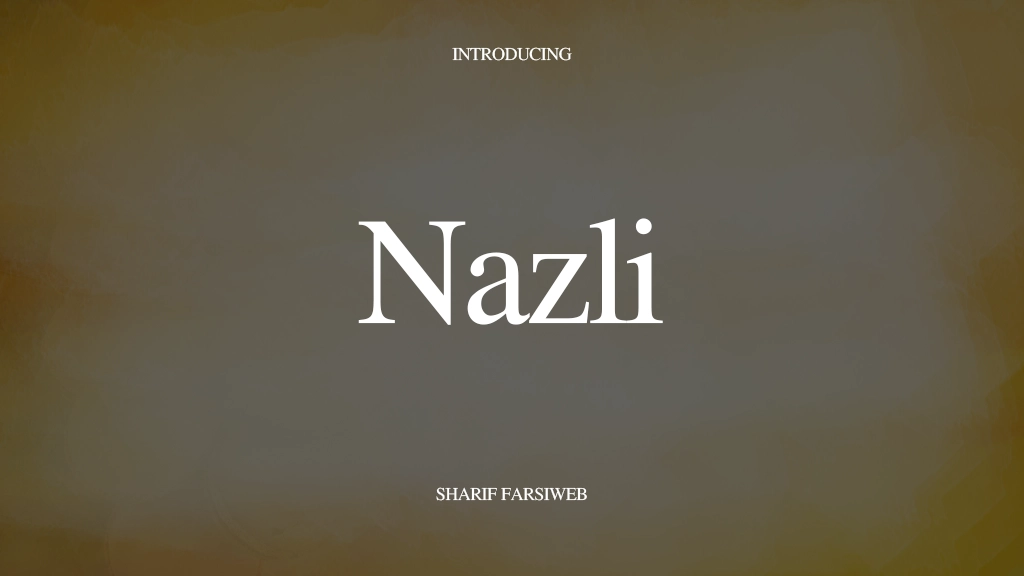
The Nazli font is a fun and stylish font that is perfect for personal use. It was designed by Sharif FarsiWeb, Inc. and is available in the Regular subfamily.